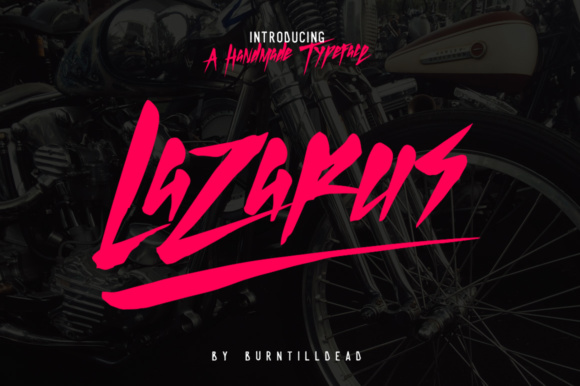
Step into the world of Lazarus Font - a visual masterpiece that will ignite your creativity and elevate your designs to new heights. This hand-drawn typeface, crafted by the expert hands of Burntilldead, captures the essence of the music industry, exuding a cool and hip vibe that will make your projects stand out from the crowd.
Lazarus Font belongs to the display font family, a category reserved for fonts that demand attention and make a statement. With its dynamic and energetic strokes, this font commands presence, adding a touch of intrigue and personality to any design. Whether you're working on posters, logos, branding materials, or social media graphics, Lazarus Font will transform your ideas into captivating visuals.
Dive into the rich history and unique signature style of Lazarus Font. Its roots in the music industry have imbued it with a rebellious spirit and a touch of nostalgia, perfect for projects that aim to evoke a sense of heritage and authenticity. Unleash your creativity and let Lazarus Font guide you on a journey through time, where classic meets contemporary in a harmonious blend.
But Lazarus Font is more than just a stylish typeface. It's a versatile tool that adapts seamlessly to a wide range of design projects. Its bold and confident strokes lend themselves perfectly to headlines, titles, and logos, while its intricate details add depth and character to body text. No matter how you choose to employ it, Lazarus Font will elevate your designs, leaving a lasting impression on your audience.
So embrace the power of Lazarus Font and let your creativity soar. Its dynamic energy and captivating style will breathe life into your projects, transforming them into works of art. Join the ranks of satisfied designers who have discovered the magic of Lazarus Font and unlock the full potential of your creative vision.